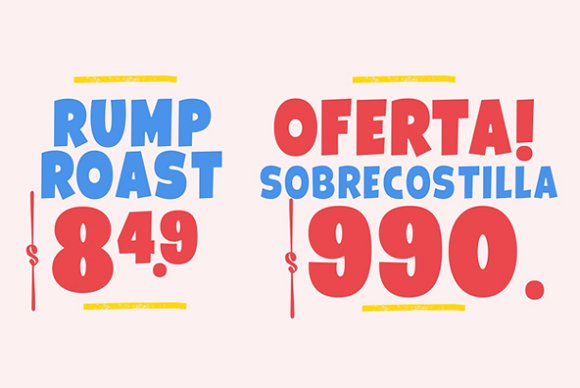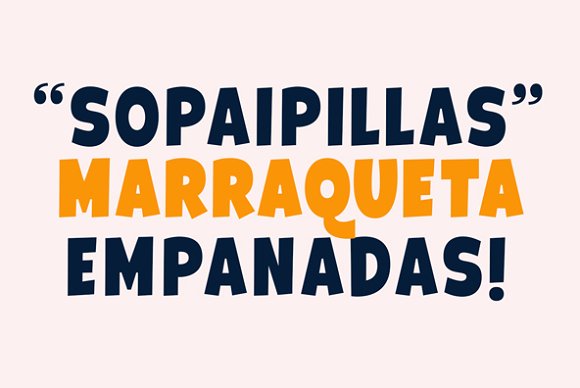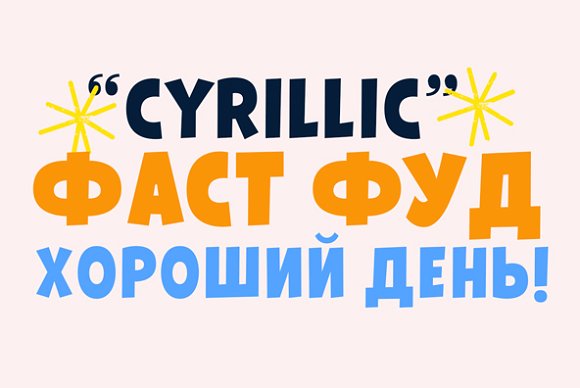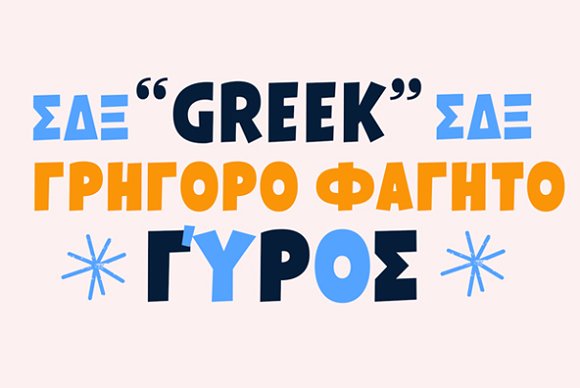
Introducing the Galpon Family Font: A Playful Collection for Creative Minds
The Galpon Family Font is a vibrant and versatile collection of 9 unique fonts that are sure to bring a touch of playfulness to any design project. This cartoon-ish family is perfect for creating eye-catching headlines, titles, and more. Whether you’re a designer, crafter, or simply a DIY enthusiast, the Galpon Family Font is an excellent addition to your typography toolkit.
A Diverse Collection of 9 Unique Fonts
The Galpon Family Font boasts an impressive range of 9 distinct fonts, each with its own personality and charm. From bold and chunky to delicate and whimsical, this collection has something for everyone. Whether you’re looking to create a statement piece or add a subtle touch of personality to your design, the Galpon Family Font has got you covered.
Perfect for Playful Headlines and Titles
The Galpon Family Font is specifically designed to help you create playful and attention-grabbing headlines and titles. With its cartoon-ish style, this font family is ideal for:
- Designing fun and engaging posters, flyers, and brochures
- Creating eye-catching social media graphics and posts
- Crafting unique and personalized stationery, such as invitations and greeting cards
- Adding a touch of whimsy to your website or blog’s typography
Key Features of the Galpon Family Font
So, what makes the Galpon Family Font so special? Here are some of its key features:
- 9 unique fonts: With 9 distinct fonts to choose from, you’ll have plenty of options to find the perfect fit for your design
- Cartoon-ish style: The Galpon Family Font boasts a playful, cartoon-inspired aesthetic that’s sure to delight
- High-quality design: Each font in the Galpon Family has been carefully crafted to ensure maximum legibility and style
Tips for Using the Galpon Family Font
To get the most out of the Galpon Family Font, here are some expert tips:
- Experiment with different font combinations: Try pairing different fonts from the Galpon Family to create unique and eye-catching typography
- Use it for headlines and titles: The Galpon Family Font is specifically designed for headlines and titles, so don’t be afraid to get creative
- Add a personal touch: Use the Galpon Family Font to add a touch of personality to your design, whether it’s a fun and playful logo or a whimsical social media graphic
| Font Name | Galpon Family Font |
| Author | Rodrigo Typo |
In conclusion, the Galpon Family Font is a versatile and playful collection of 9 unique fonts that’s perfect for designers, crafters, and DIY enthusiasts alike. With its cartoon-ish style and high-quality design, this font family is sure to bring a touch of fun and personality to any design project. So why wait? Download the Galpon Family Font today and start creating eye-catching headlines and titles that are sure to delight!